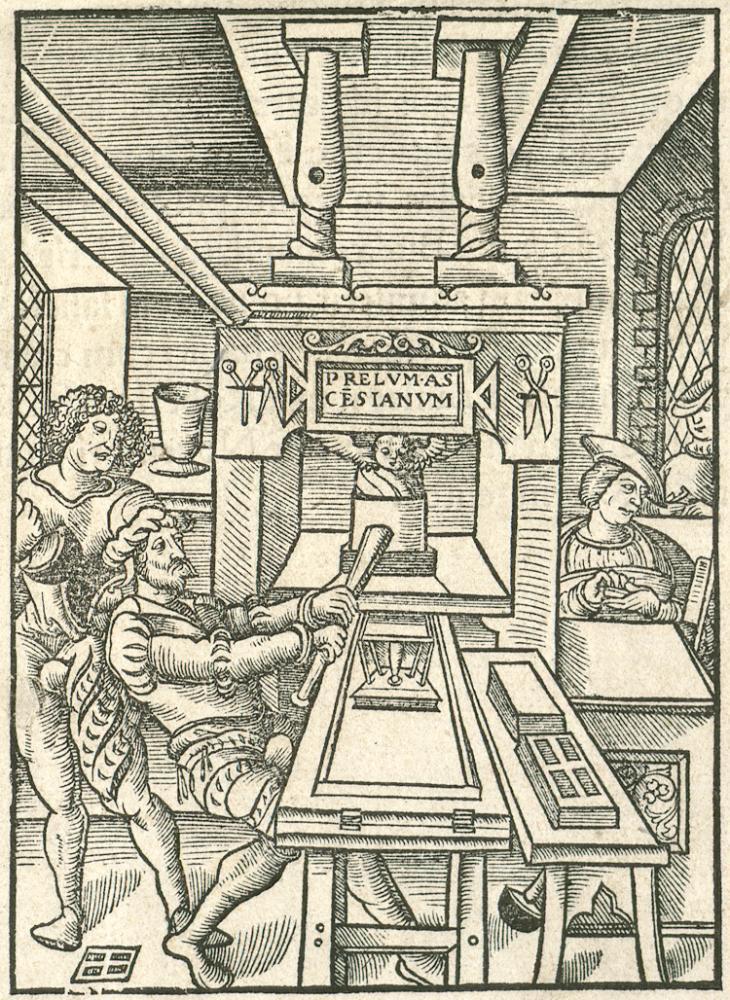
“The Renaissance Typography Database brings together information relating to the history of printing materials (typefaces, engraved blocks) used in Europe from the 15th to the 17th century. It is based on over twenty years’ work by the team of the Bibliothèques Virtuelles Humanistes, in close partnership with the Computer Science Laboratory at the University of Tours. […] The database enables the description and indexing of materials appearing in numerous digital libraries.”